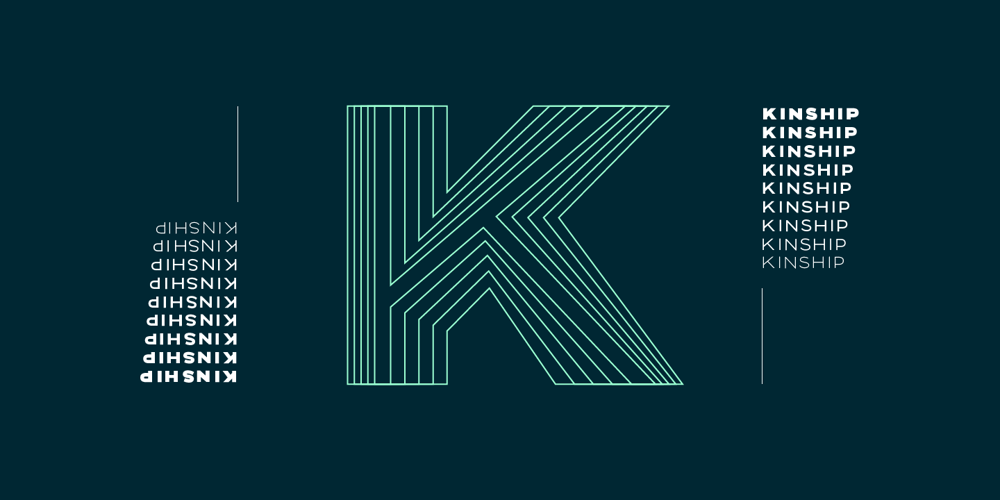
Kinship Sans Font Family was designed by Adam Greasley and published by wearecolt. Kinship Sans contains 9 styles and family package options. Introducing Kinship, a Grotesque 9 weight font family by We Are Colt. Kinship has been created to be your all-round go-to grotesque font that works well for copy and titles. With nine standard weights, this font is more flexible than a bungee rope. Kinship is a sans serif modern classic grotesque font, perfect for adding personality to logos and brochures. Pairs well with script and brush fonts: I recommend Stroom. Features: 9 separate font weights Western European, Central, South-eastern Upper and lowercase Numerals Free 300 font weight